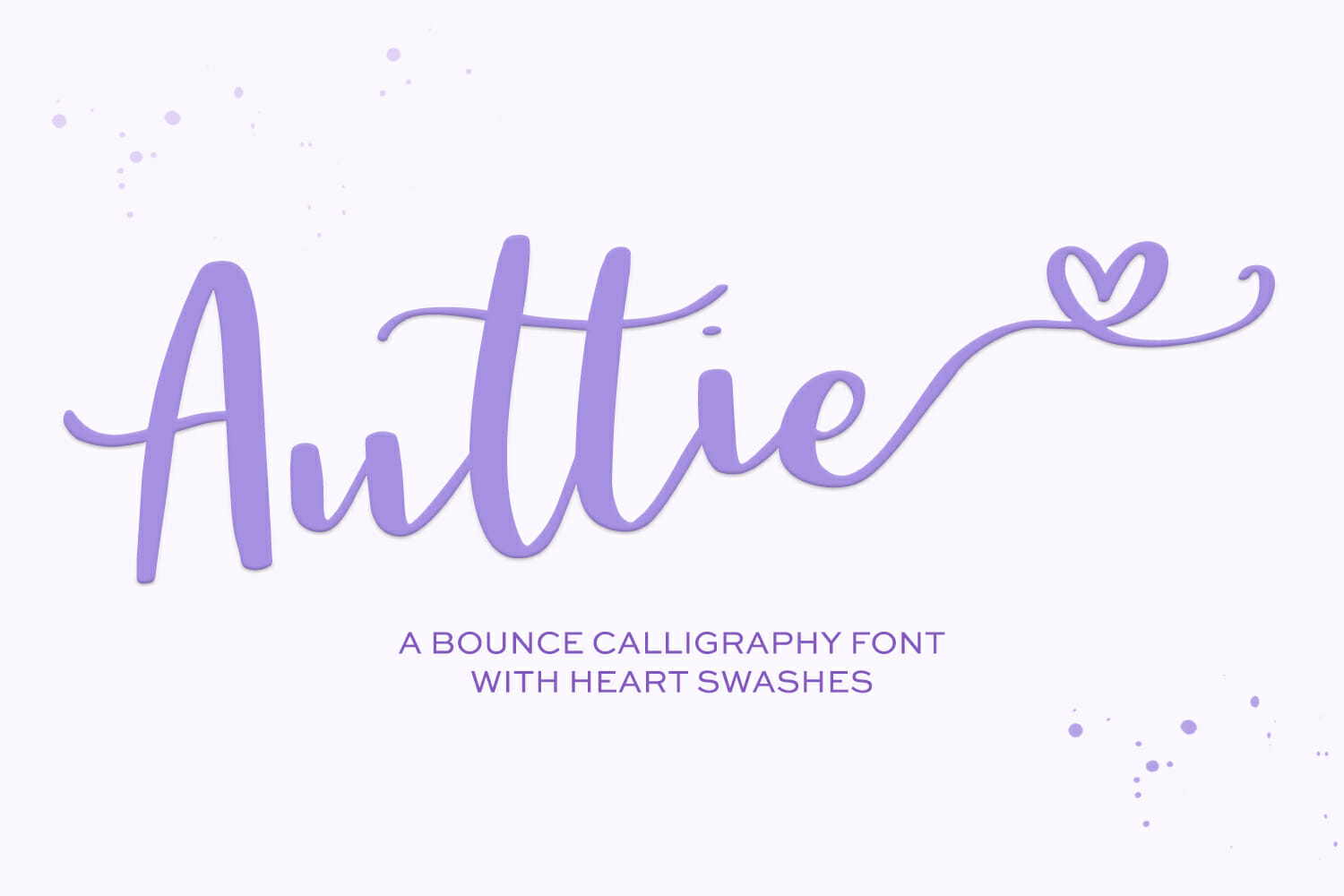
Auttie Script Font with Heart Swashes
Meet Auttie, a sweet hand-lettered script with adorbs heart swashes, and lovely flowy alternate swashes.
Features include:
– a varied, funky baseline to give a realistic hand-lettered look
– double letter ligatures
– left + right heart swashes and flowy swashes on each lowercase letter
Auttie Script Font with Heart Swashes is a sweet, hand lettered cursive font.  It has a bouncing baseline that gives it that authentic hand-lettered look. Use Auttie for feminine branding, logos, invitations, quote graphics or girly t-shirts. Sweet and sassy, Auttie plays well with simple sans fonts, or is awesome enough to stand on its own.
As a bonus, Auttie Script has awesome extra features.  Those include:
– common double letter ligatures,
– left and right swash options, including hearts & flowy swashes